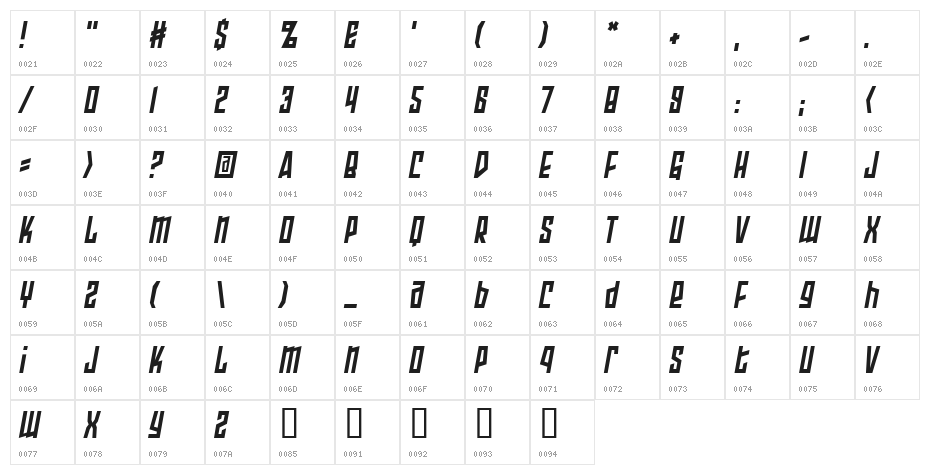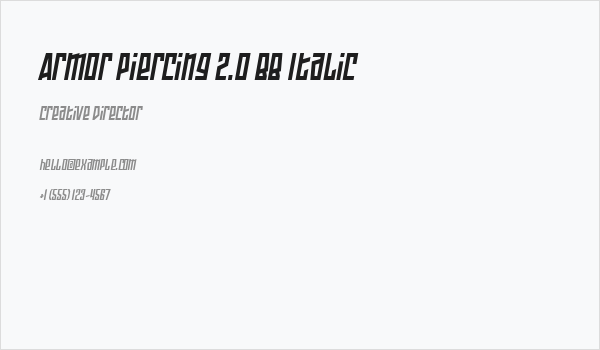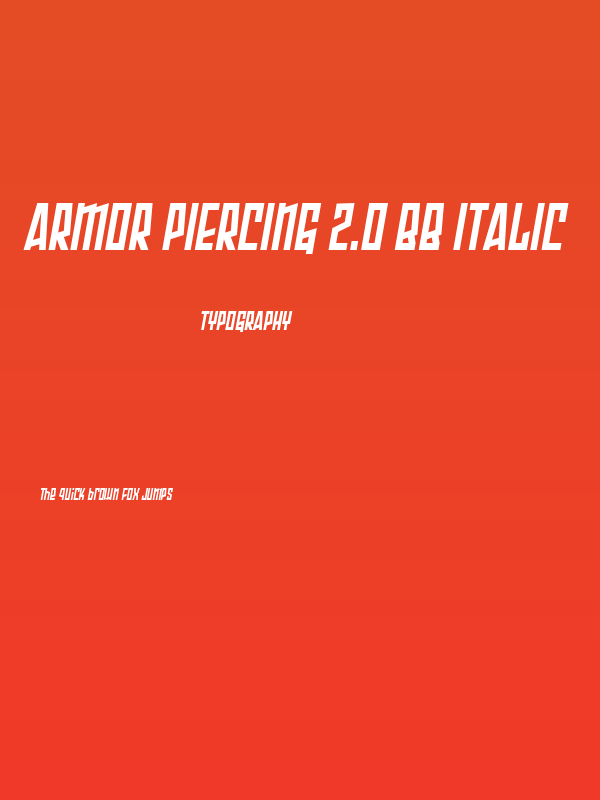
Armor Piercing 2.0 BB Italic Font
Armor Piercing 2.0 BB Italic Description
This font features a bold, italicized style with sharp, angular edges and a futuristic aesthetic. The characters are designed with a distinct slant, giving them a dynamic and aggressive appearance. The uppercase and lowercase letters maintain a consistent style, with a strong emphasis on vertical and diagonal lines. The numerals and special characters follow the same design principles, ensuring uniformity across all glyphs. This font's unique look makes it suitable for projects that require a modern and edgy feel.
| Proposed Projects | Ideal for video game titles, sci-fi movie posters, tech branding, and edgy graphic designs. |